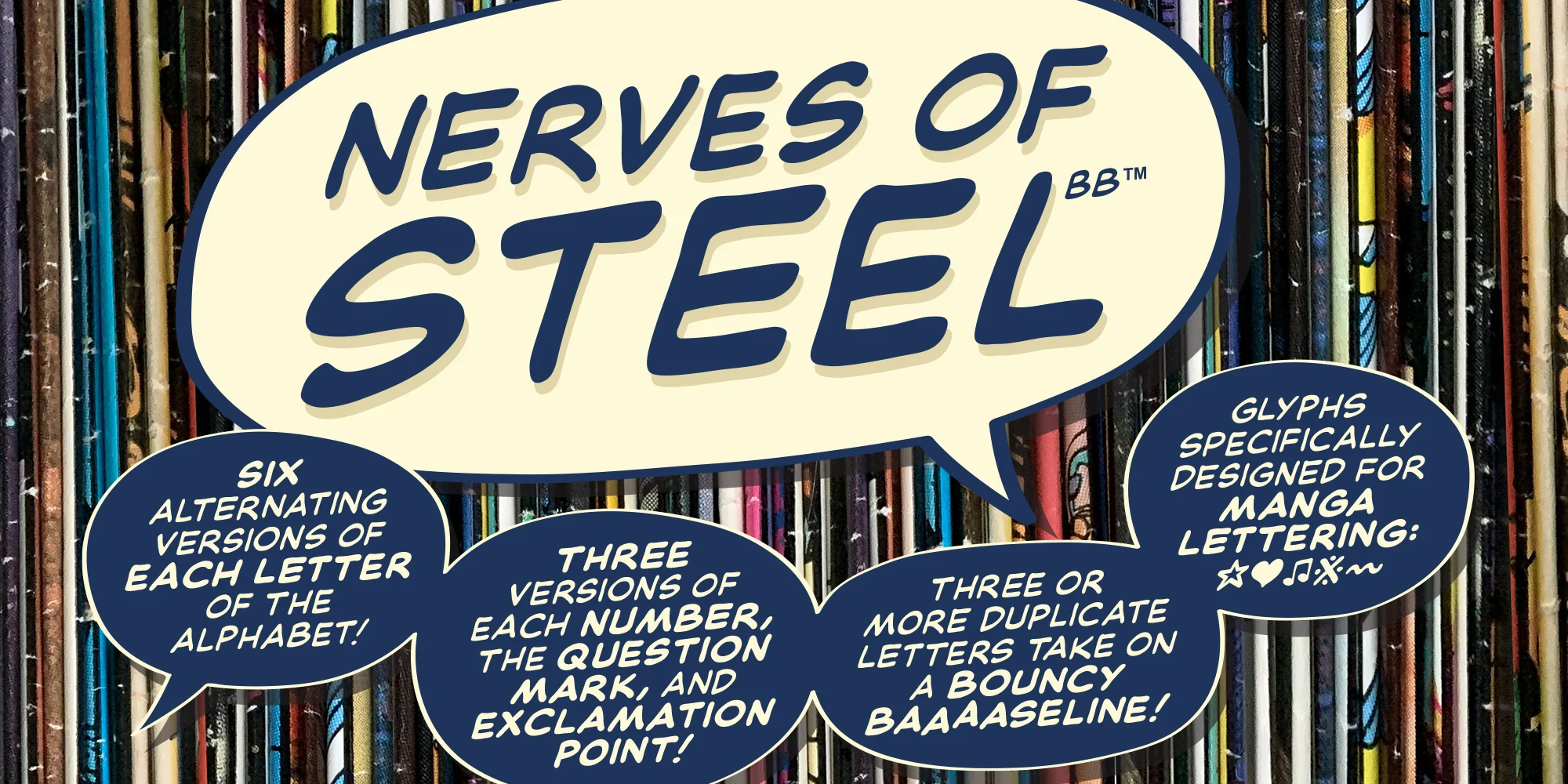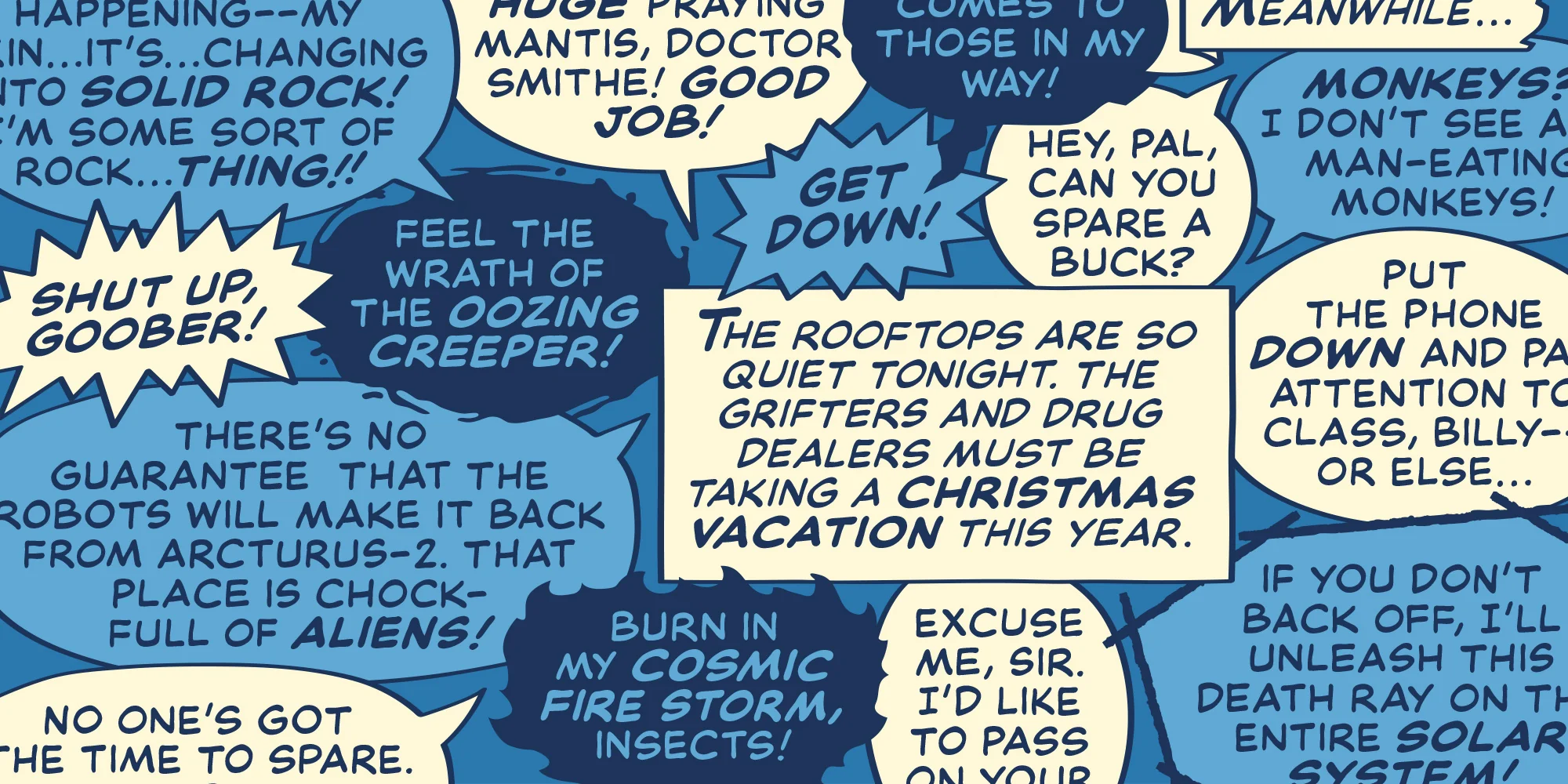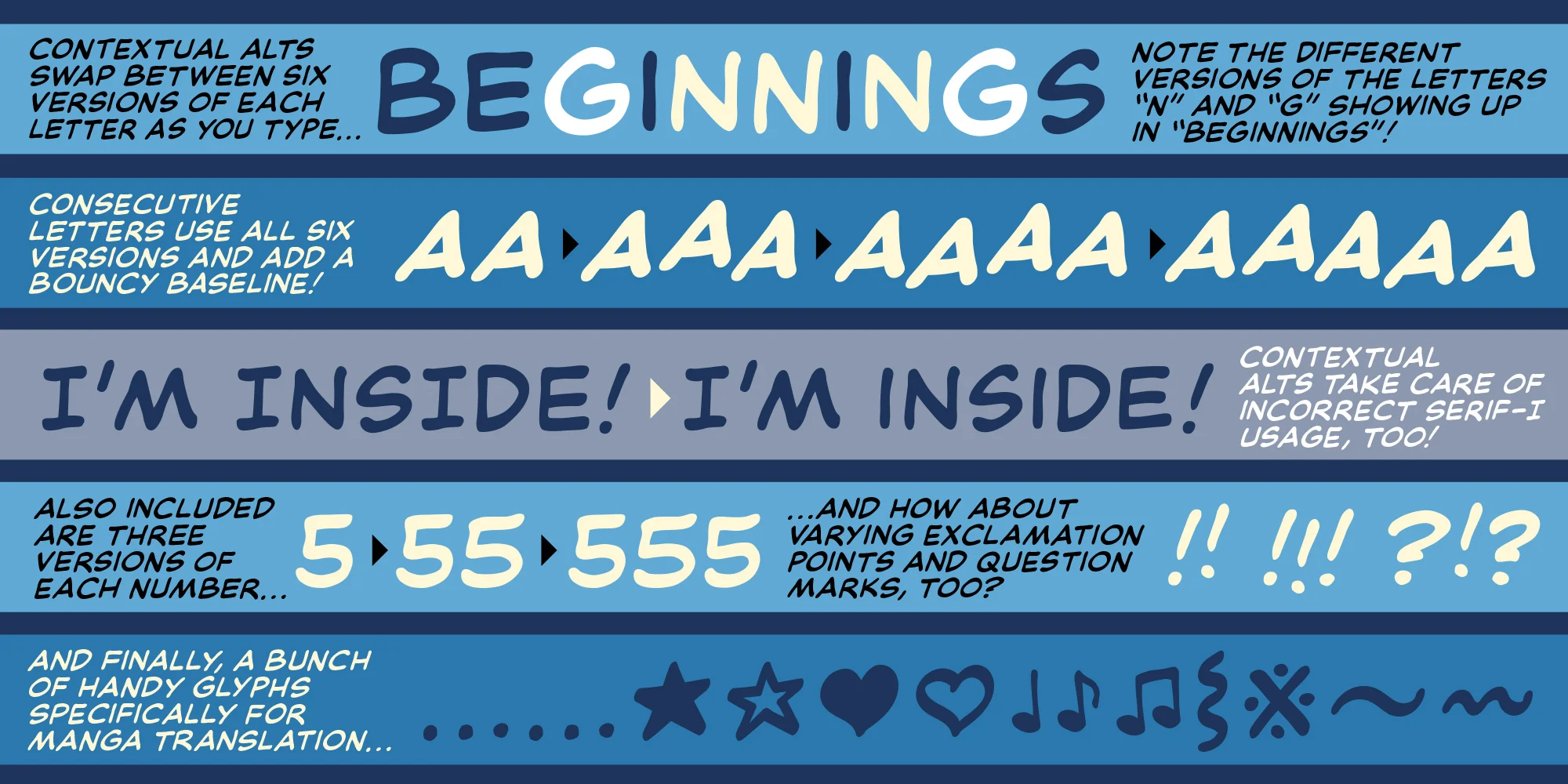
Nerves of Steel
- Regular, Italic, Bold, Bold Italic
- Includes Manga and European characters
- Contextual alternates create six alternating versions of letters, three alternating versions of numbers, exclamation points and question marks. Auto-correction of errant barred-I. Three or more duplicate letters take on a bouncy baseline.